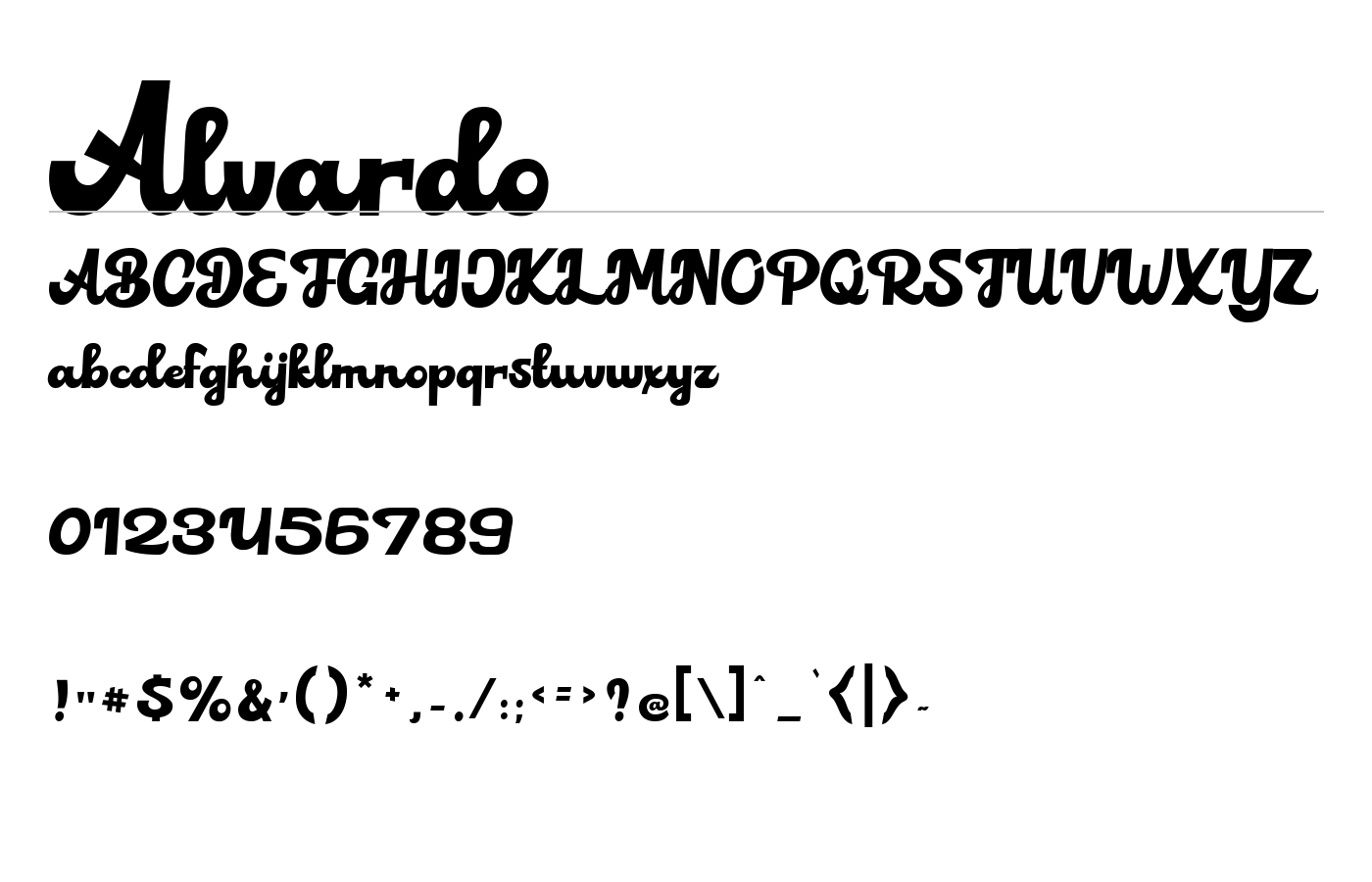
Alvardo is a bold, playful script-inspired display font with smooth, rounded strokes and a lively, informal character. Its flowing letterforms and moderate contrast make it ideal for eye-catching headlines, logos, and packaging that want to convey friendliness and warmth. This font works best in creative and casual branding contexts where personality and approachability are key.
Alvardo Font
About Alvardo Font
| Font family | Alvardo Font |
| Designer | Doli Harahap |